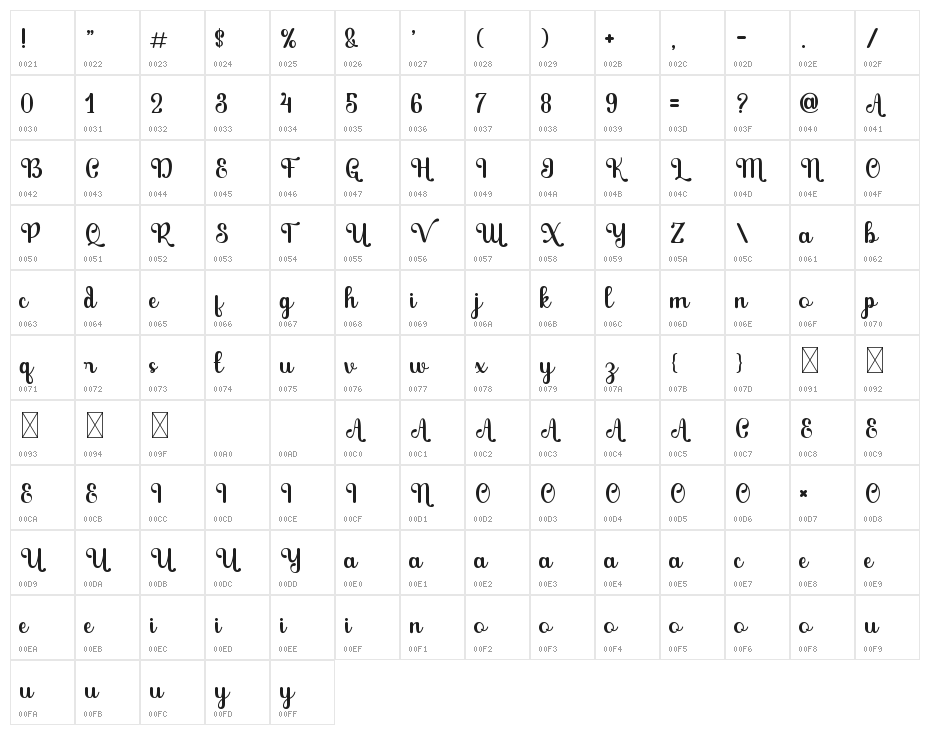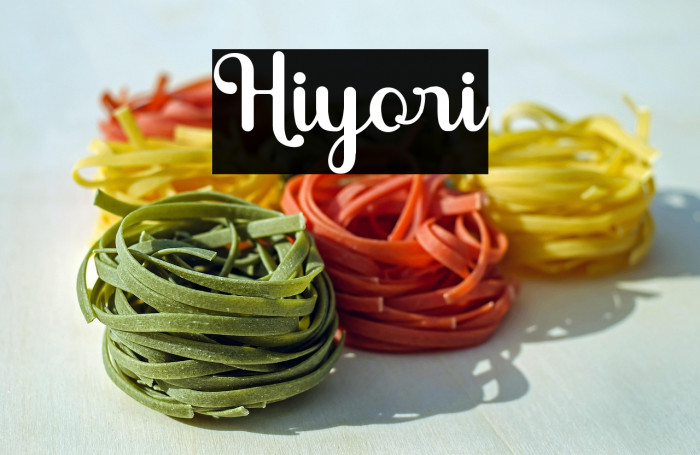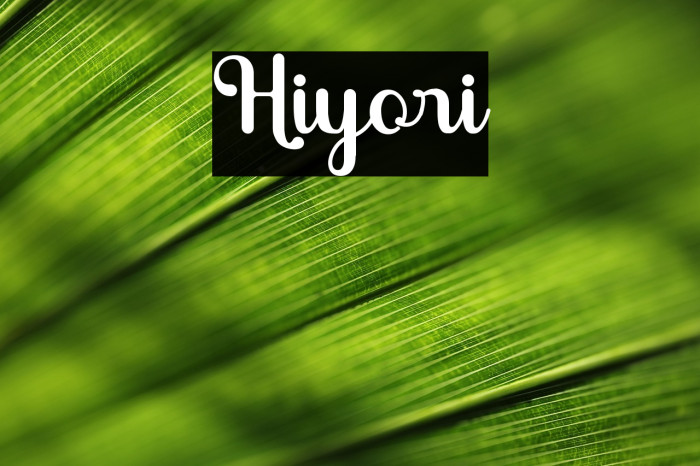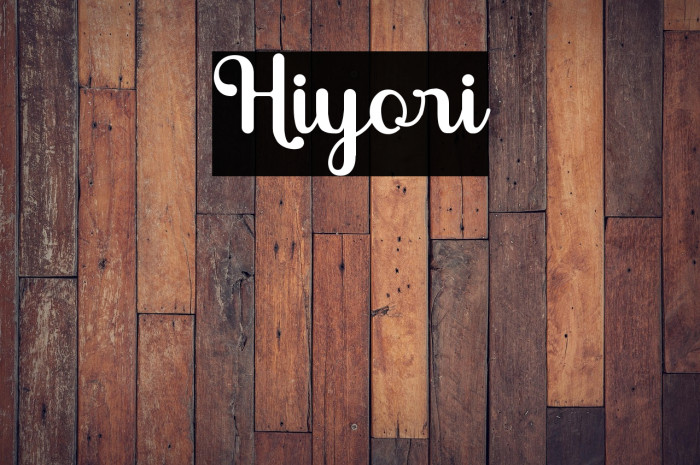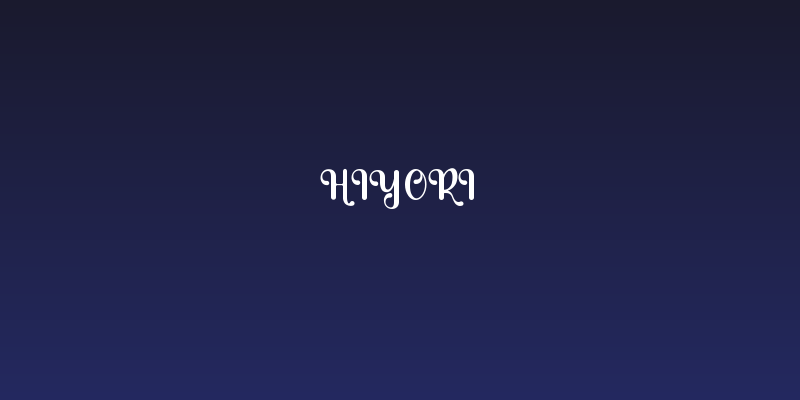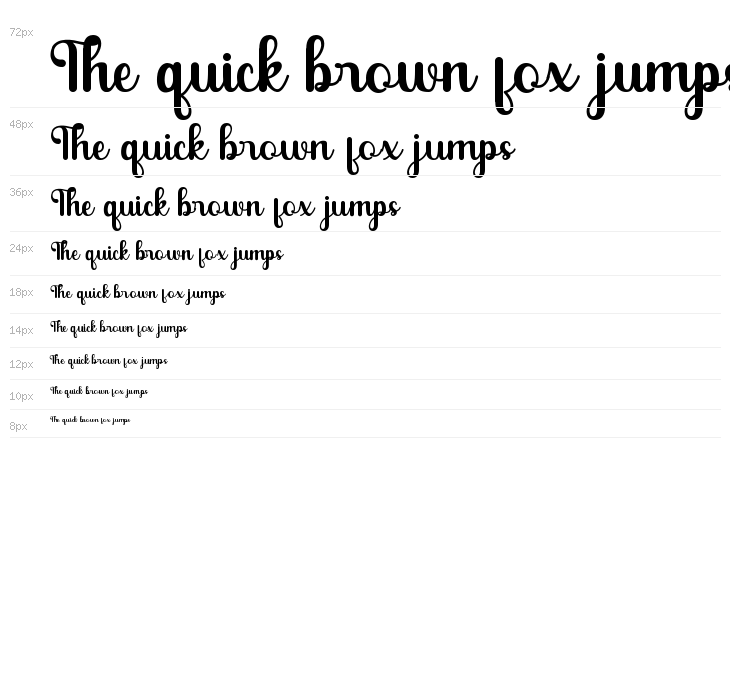
Hiyori Font
Hiyori Description
This font features a playful and whimsical style, characterized by its curly and flowing letterforms. The uppercase letters have a distinct looped design, adding a touch of elegance and charm. The lowercase letters maintain a consistent flow with a slight slant, enhancing readability while retaining a decorative flair. The numerals are bold and clear, matching the overall aesthetic. Special characters are crafted with the same attention to detail, ensuring a cohesive look across all glyphs. This font is ideal for projects that require a touch of personality and creativity.
| Proposed Projects | Ideal for invitations, greeting cards, branding, and creative projects that require a unique and charming touch. |